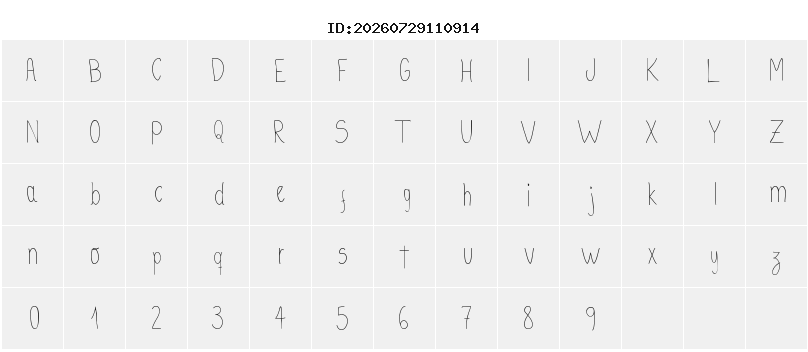
About kaus Tripa.ttf
kaus Tripa.ttf is a modern, elegant sans-serif font designed for ultimate readability and visual harmony. Perfect for branding, headlines, web design, and print materials.